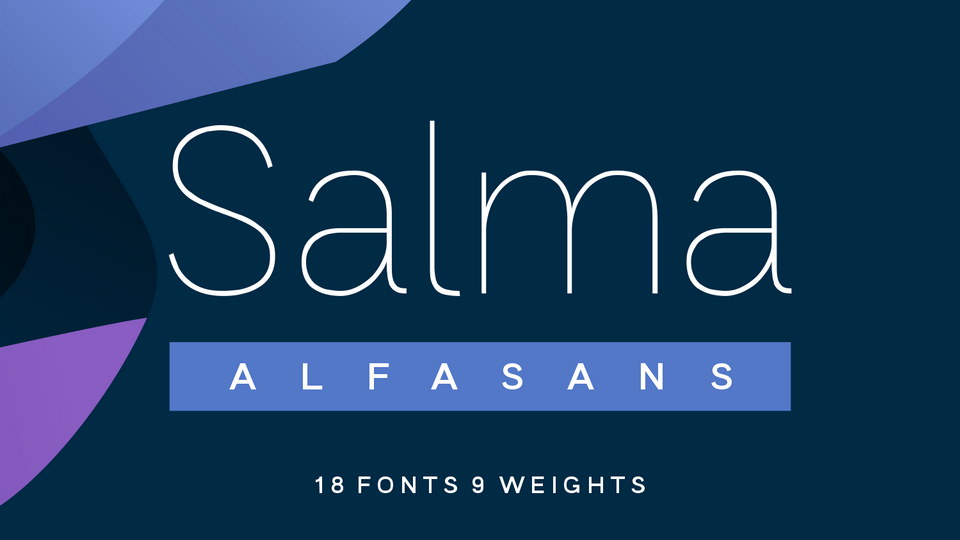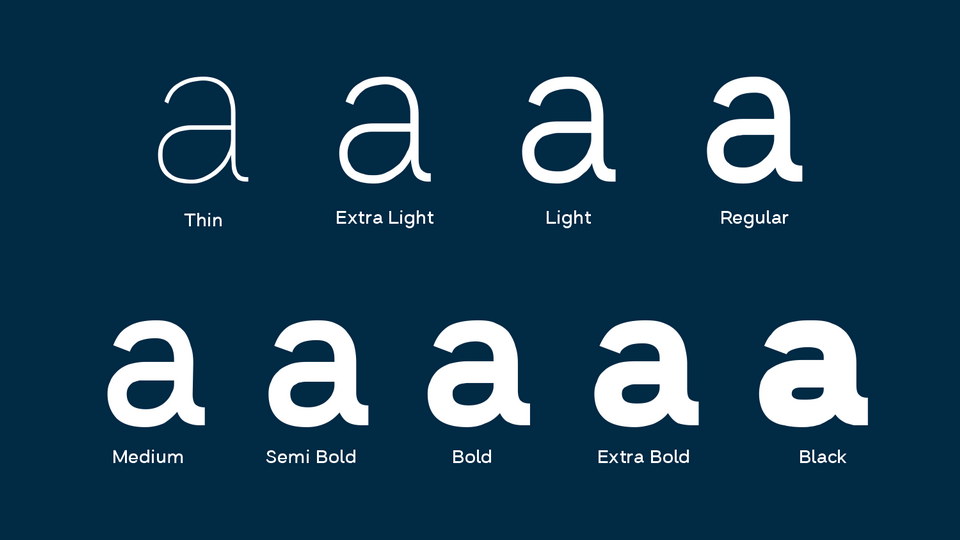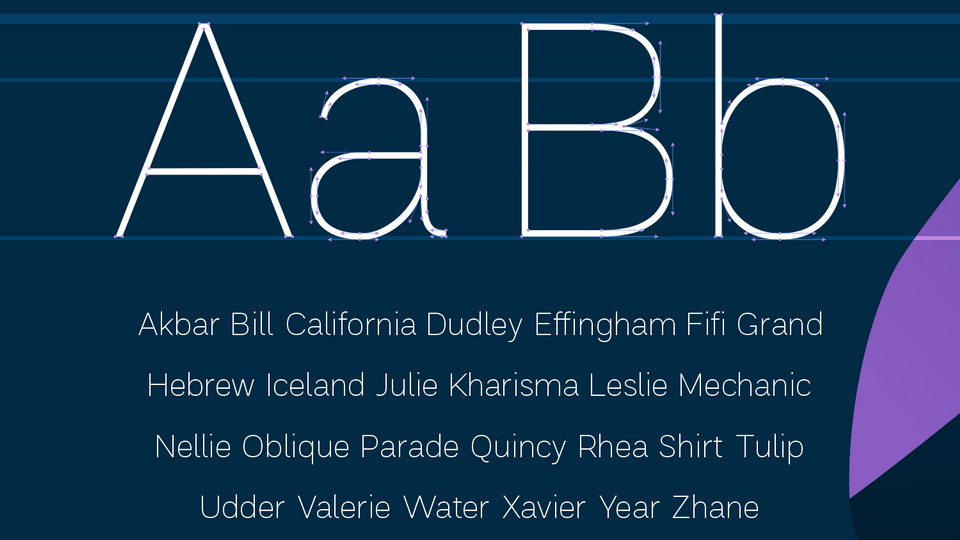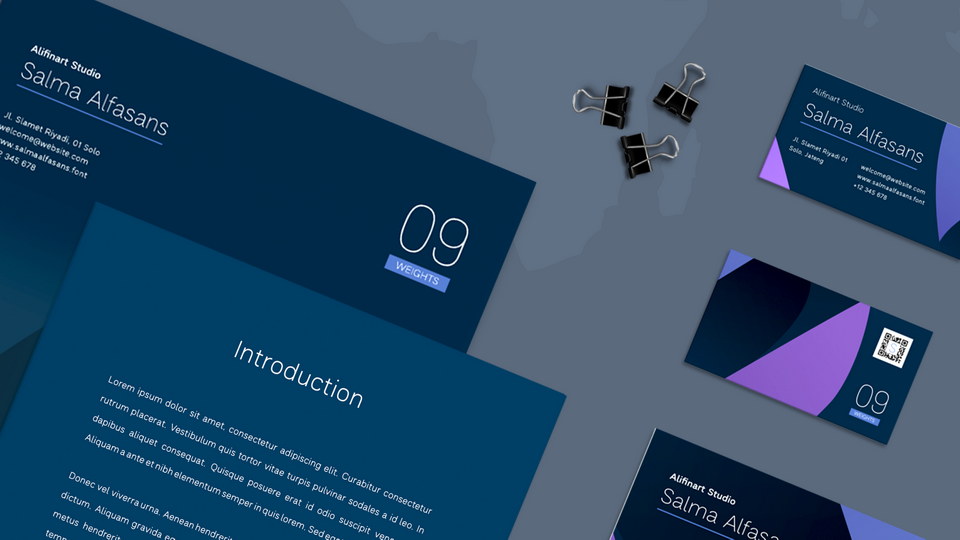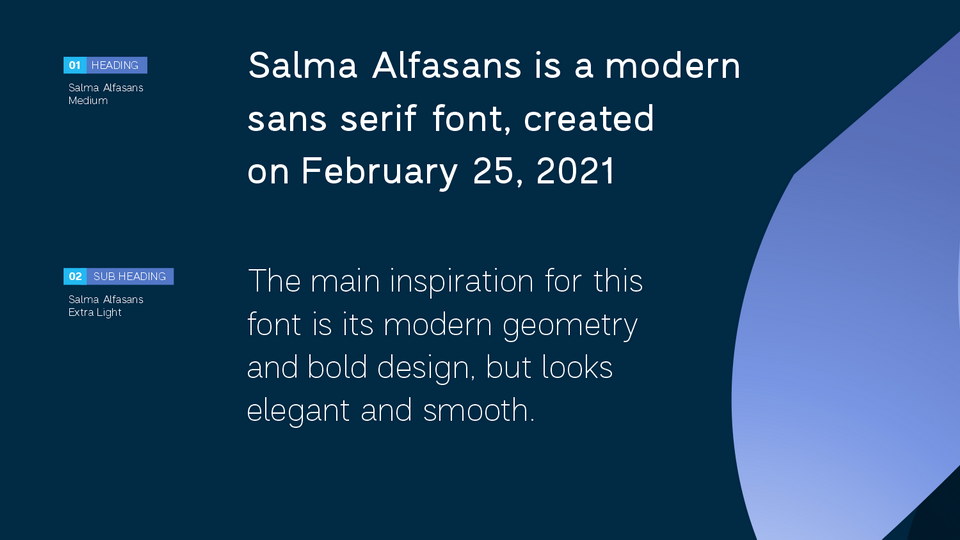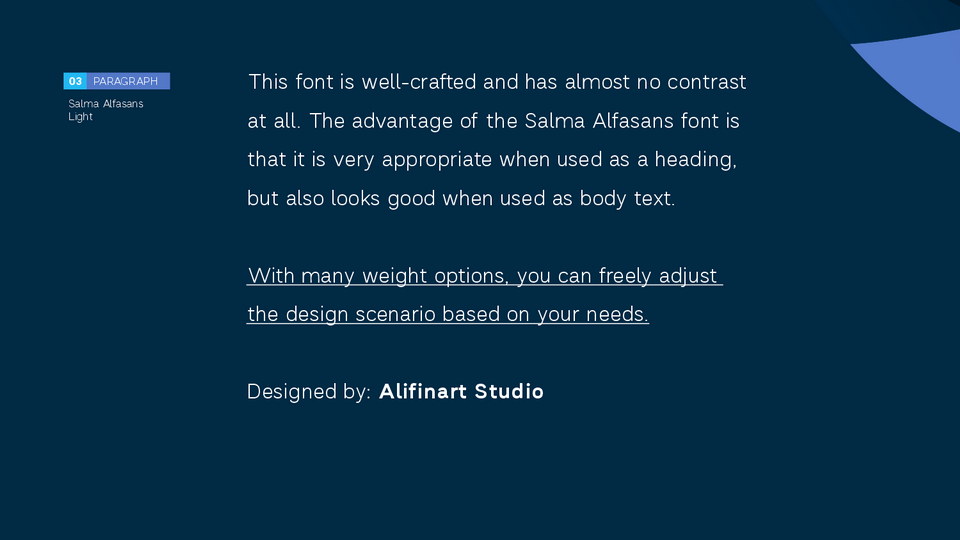
Salma Alfasans is a modern sans serif font inspired by a modern geometry and bold design with elegant and smooth look.
The free version includes Light and Light Italic styles. The complete family comes with 9 weights and corresponding Italics that can freely adjust the design scenario based on your needs.
Salma Alfasans is well-crafted and has almost no contrast at all. The advantage of the Salma Alfasans font is that it is very appropriate when used as a heading, but also looks good when used as body text.